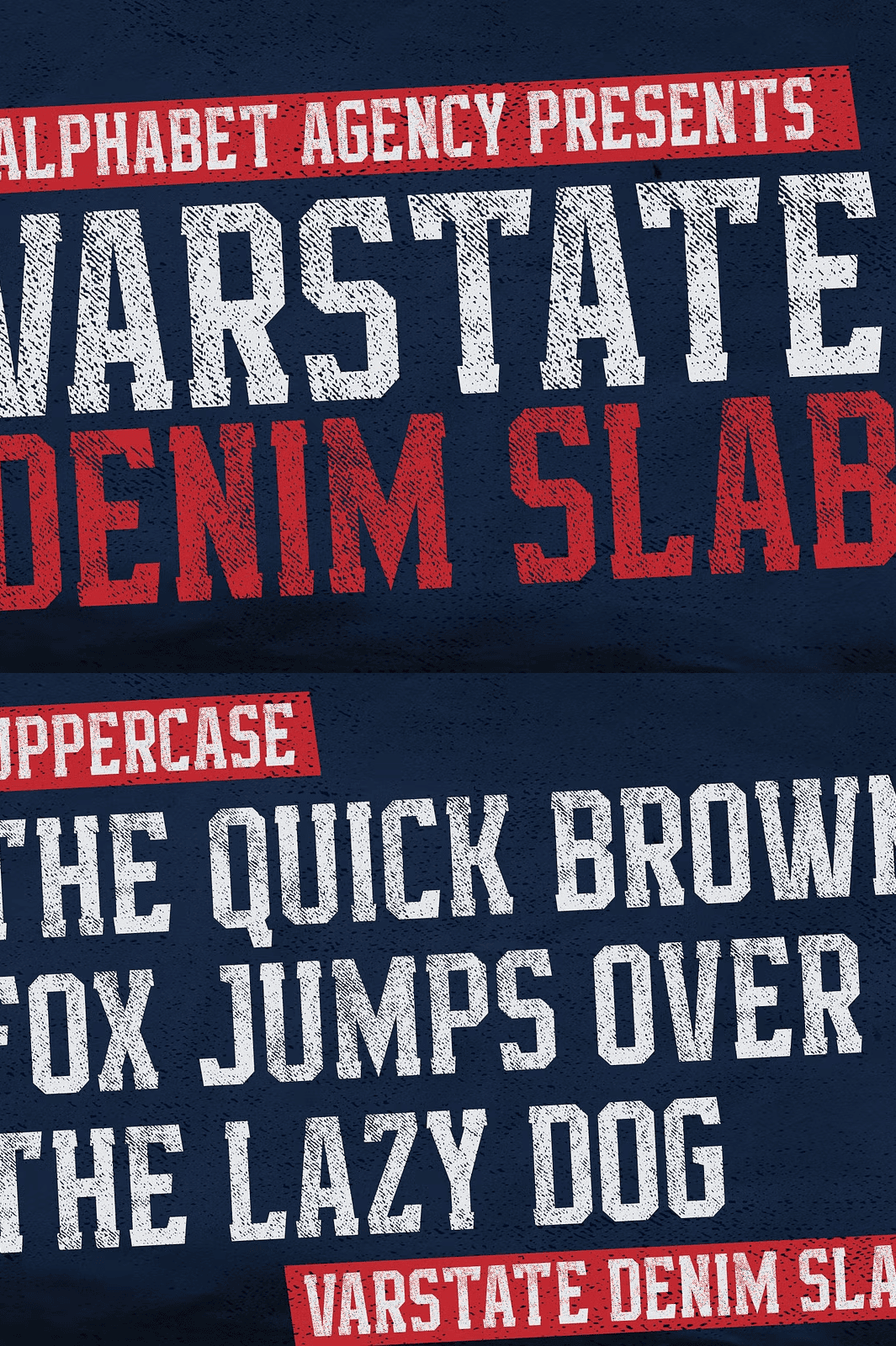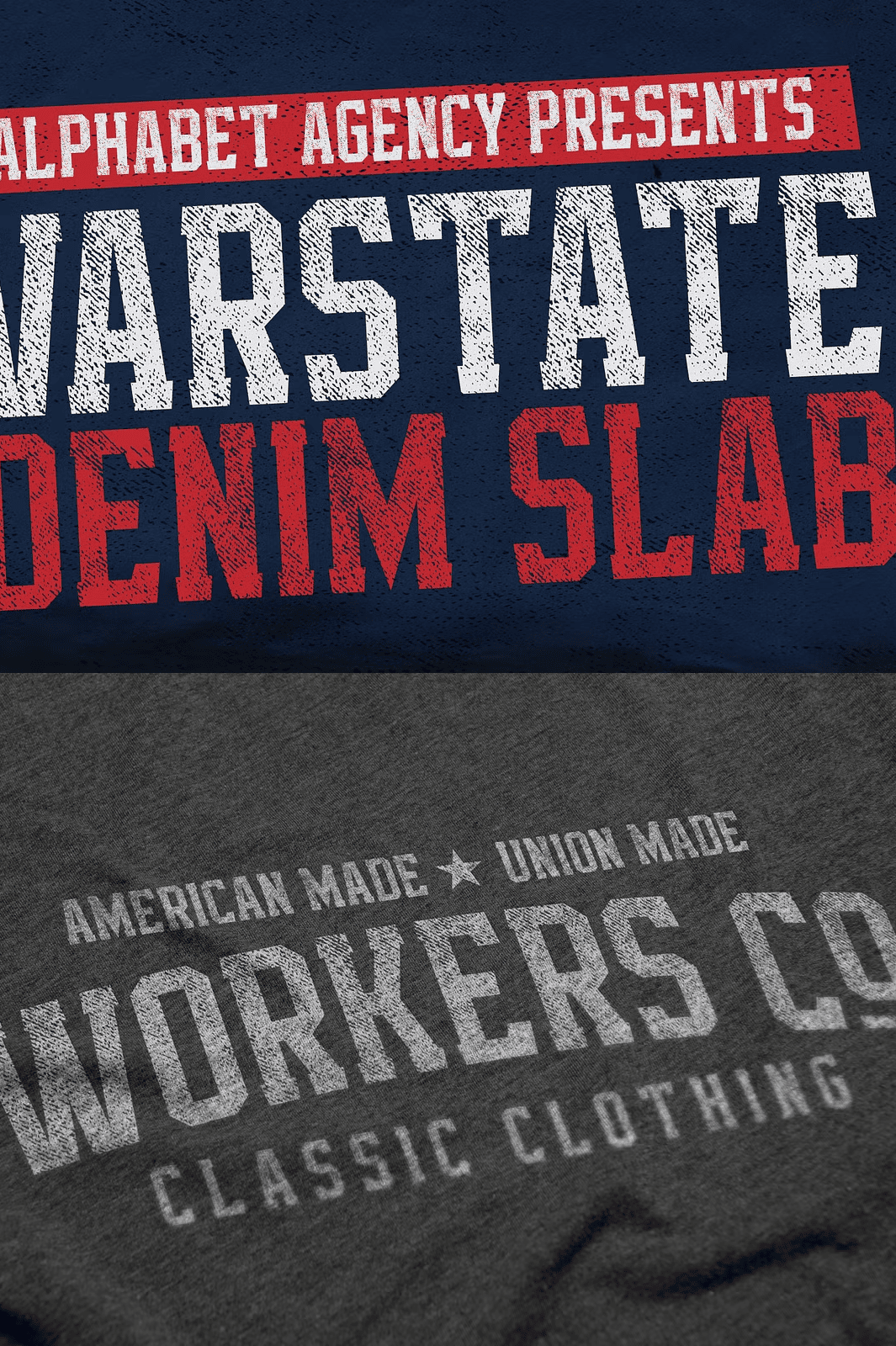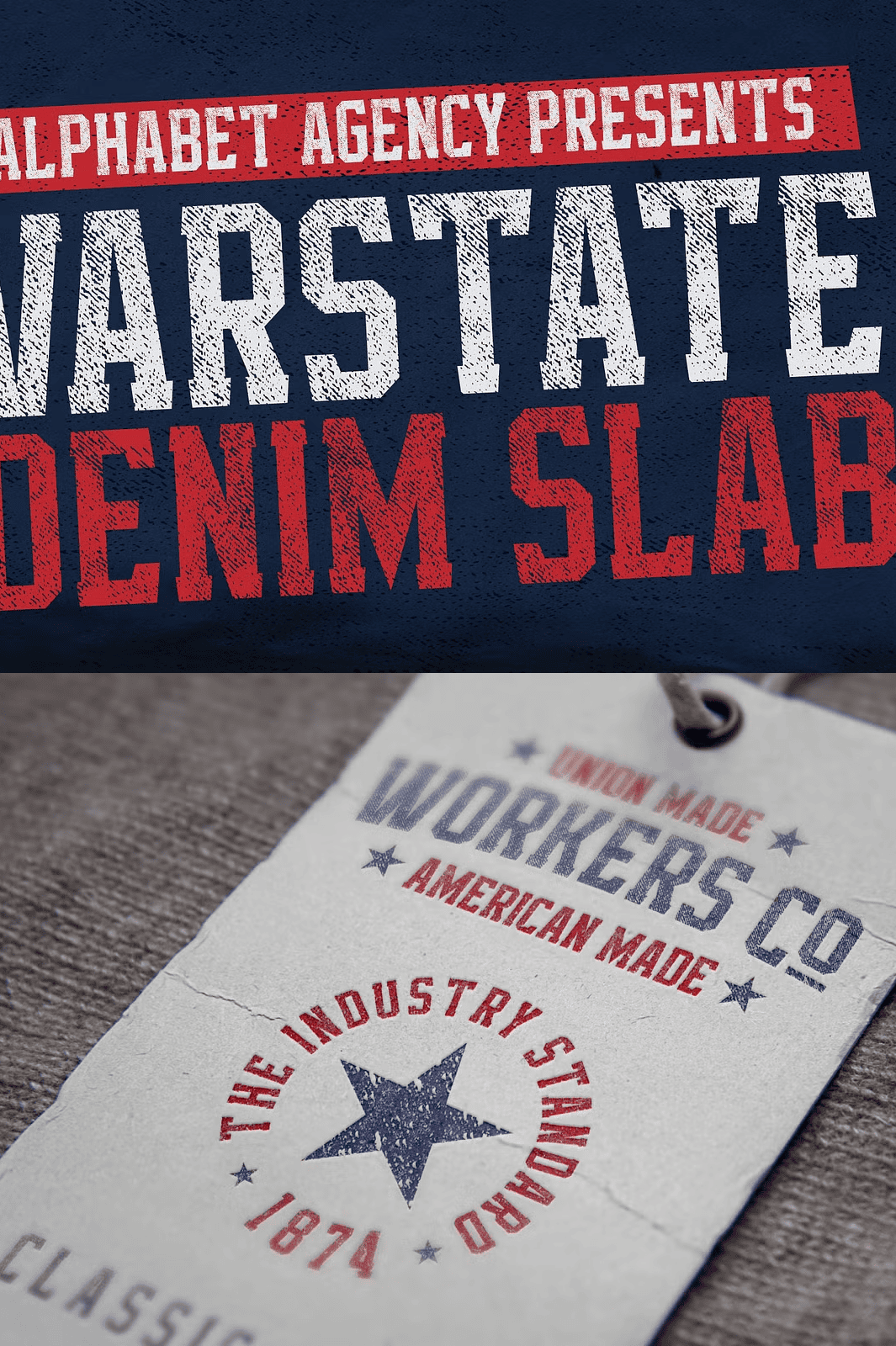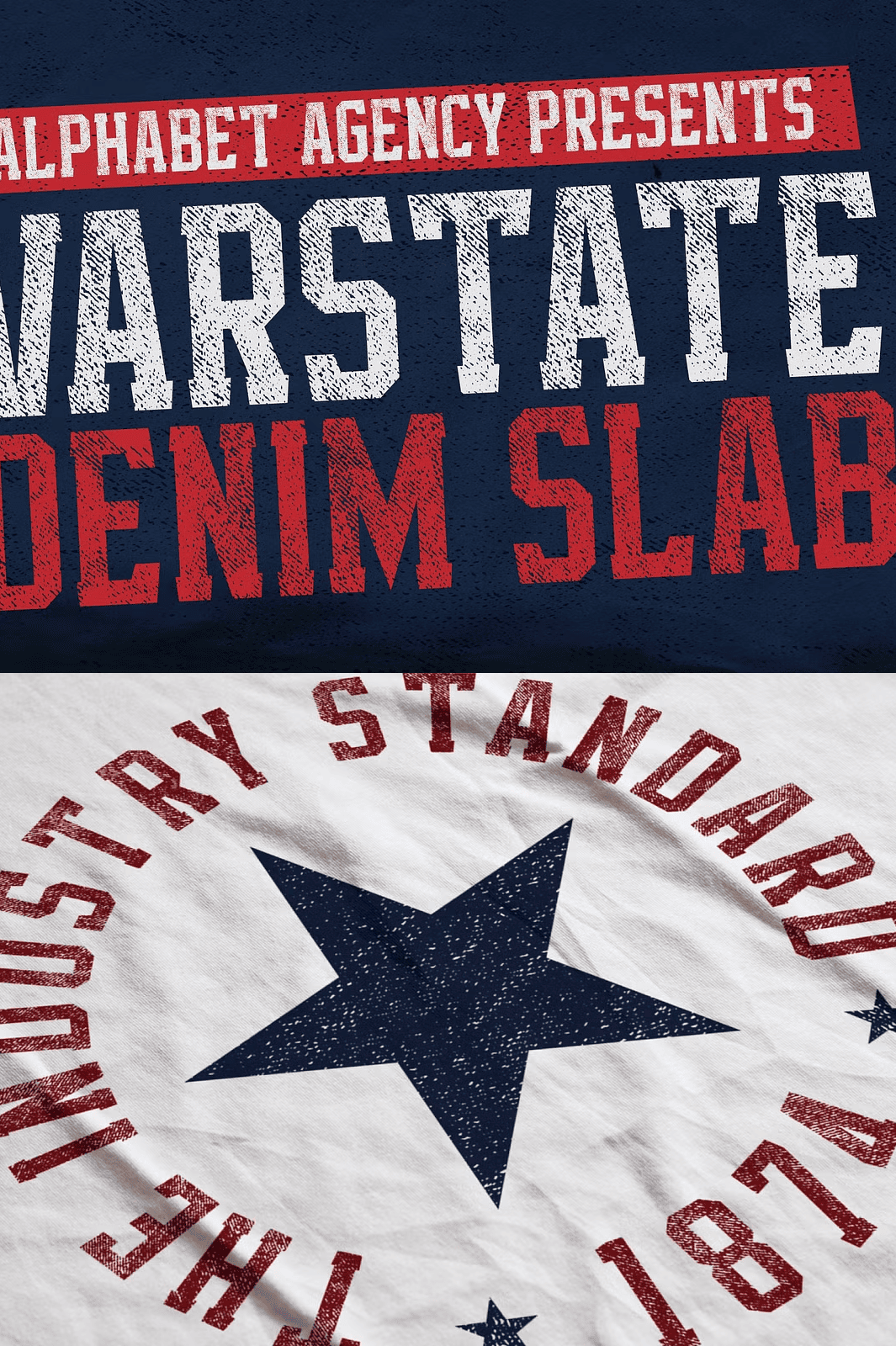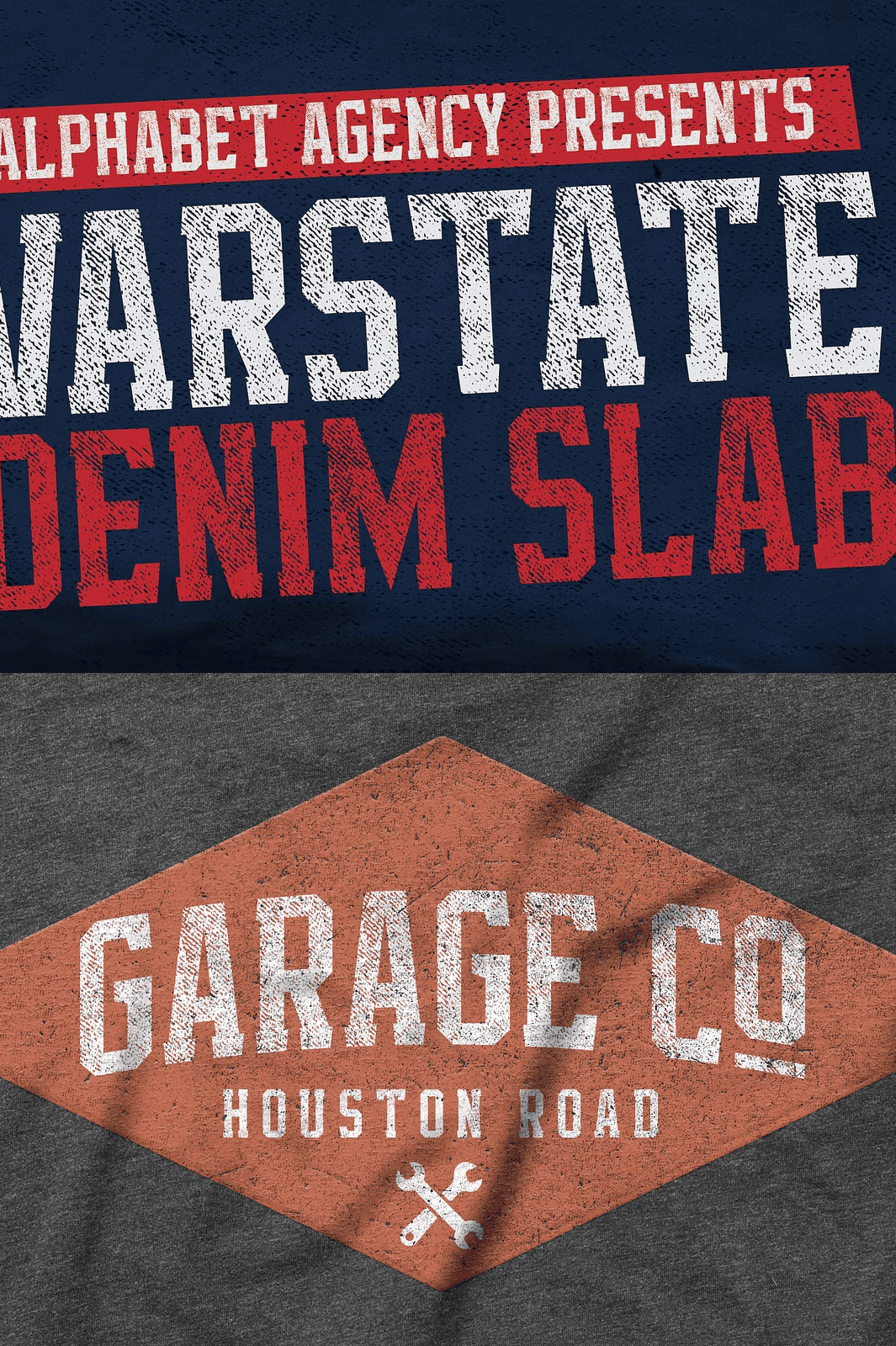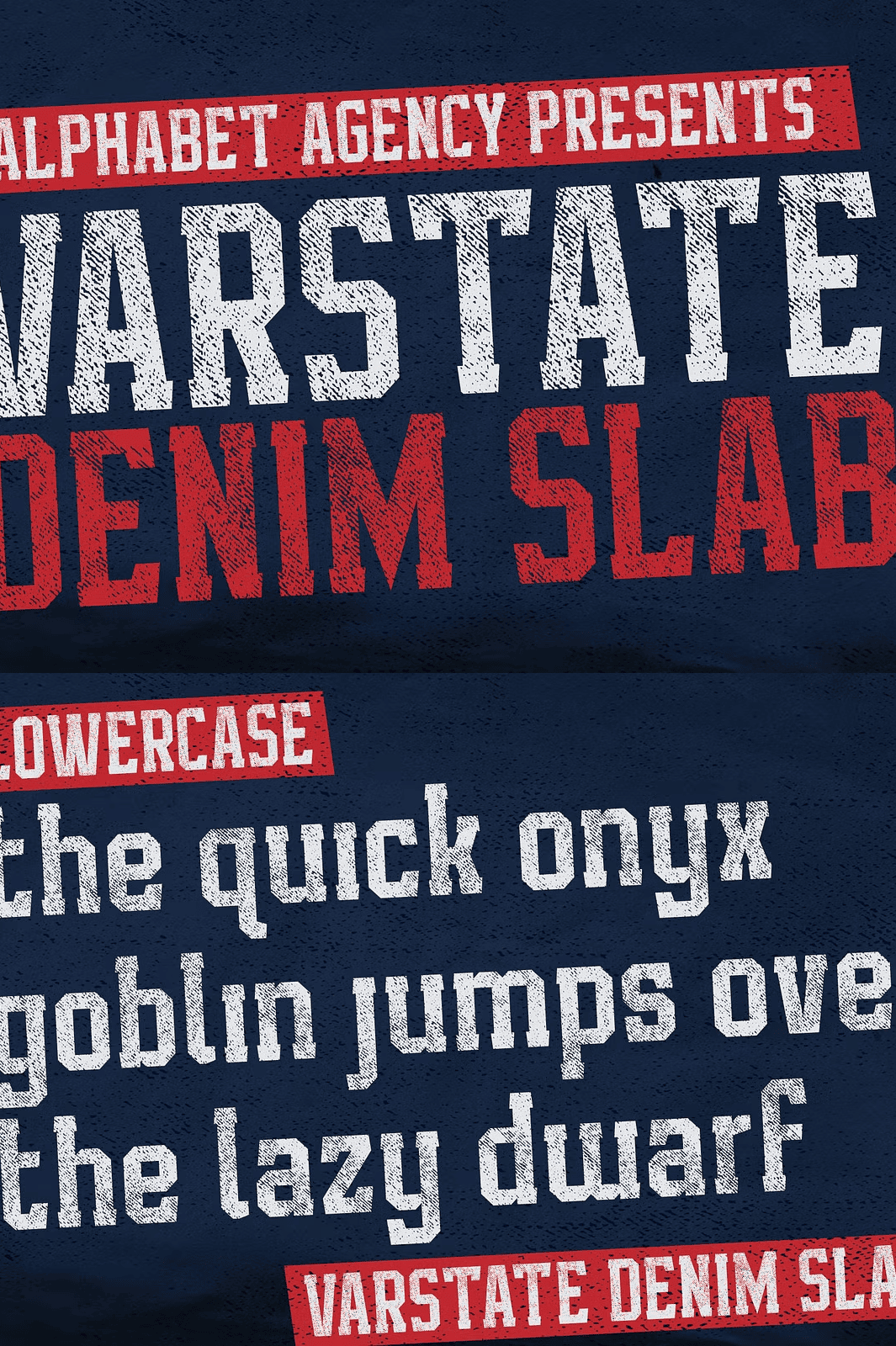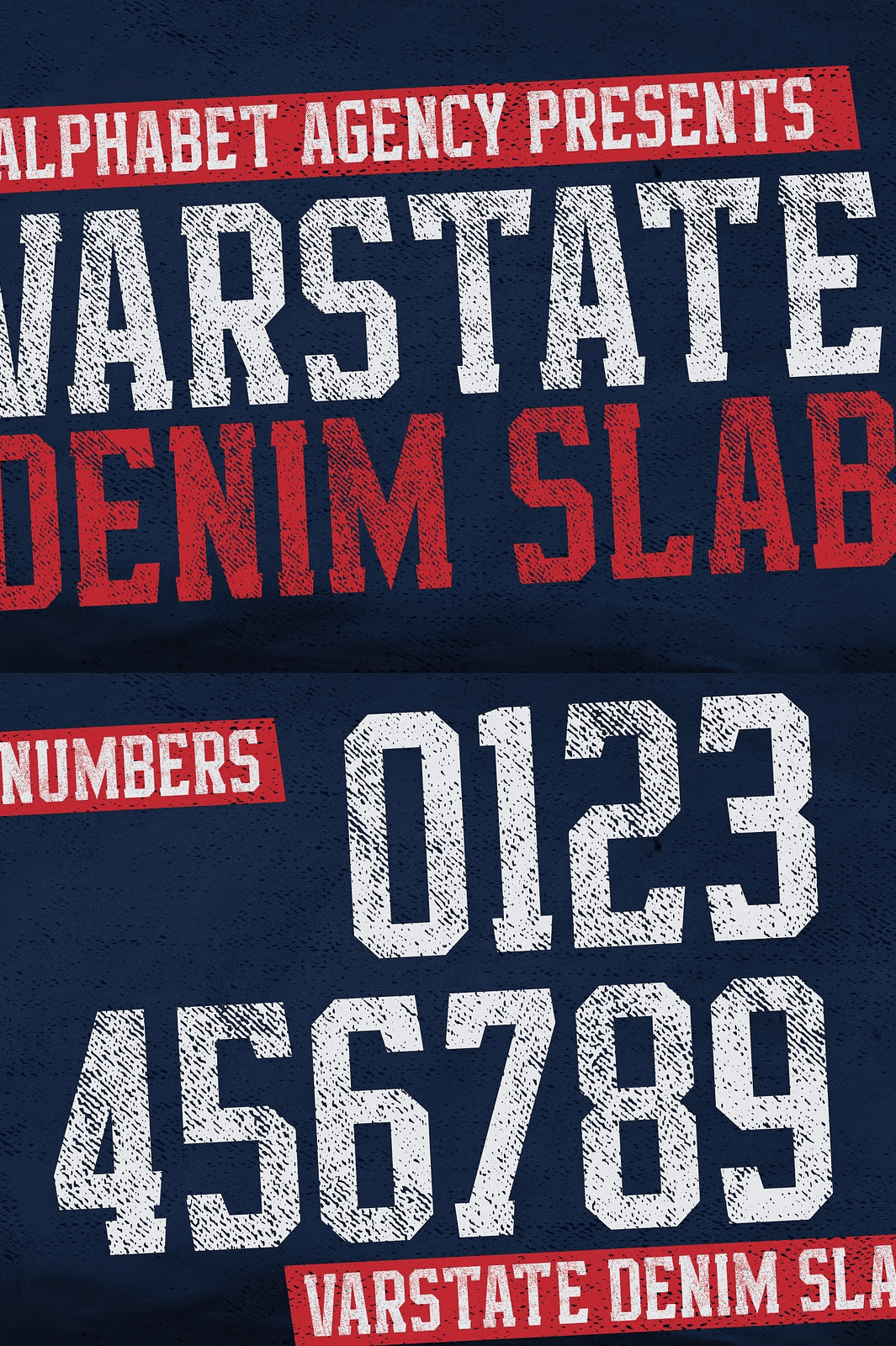
Step into the world of classic sportswear with Varstate Denim Slab, a dynamic typeface that captures the soul of vintage lettering found on Letterman jackets, t-shirts, and hoodies. This isn’t just a font—it’s a wearable identity, a visual homage to the rugged, timeless aesthetic of American varsity culture. With a meticulously embedded **denim texture pattern** woven into every character, Varstate Denim Slab brings physicality and depth to your digital designs, transforming text into a tactile experience.
Rooted in Tradition, Engineered for Modern Design
Designed with authenticity at its core, Varstate Denim Slab draws direct inspiration from team name lettering seen on classic athletic wear—bold, confident, and full of character. Yet, it’s far from outdated. The font combines nostalgic visuals with modern typographic precision, making it ideal for contemporary branding, editorial layouts, and digital storytelling.
The embedded denim texture is no mere overlay. It’s intricately integrated into the stroke design, creating natural variations in line weight and surface detail that mimic the real fabric. This means your headlines don’t just *say* “sporty” or “streetwear”—they *look* and *feel* like they belong on a vintage jacket.
Complete Feature Set for Designers Who Demand Excellence
Varstate Denim Slab is built to perform across every project requirement:
- Comprehensive Character Set—Includes full support for uppercase and lowercase Latin letters, numerals, punctuation, and essential symbols. Perfect for brand names, taglines, product labels, and full-body copy.
- High-Performance Legibility—Clear, well-spaced letterforms ensure readability at any size, from large banners to subtle logo accents.
Whether you’re crafting a fashion campaign, designing a limited-edition hoodie, or building a retro-themed website, Varstate Denim Slab gives you the tools to deliver powerful, polished results.
Perfect for Men’s Fashion, Sporty Branding, and Street Culture
This font thrives in environments where attitude, authenticity, and edge matter. Use Varstate Denim Slab to instantly elevate your projects in:
- Menswear & Fashion Design—Create bold labels, branding elements, and looks that speak to masculine confidence and urban style.
- Brand Identity & Logo Design—Establish a distinctive visual personality that stands out in competitive markets.
- Merchandise & Apparel Labels—Print on t-shirts, hats, and jackets with a font that feels as durable as the fabric itself.
- Event & Campaign Visuals—Use in posters, flyers, and digital ads for concerts, sports events, or lifestyle brands celebrating heritage and street culture.
- Web & App UI Design—Highlight headlines, call-to-action buttons, and navigation elements with a font that commands attention.
When your project needs character that doesn’t fake it, Varstate Denim Slab delivers real, handcrafted style with professional polish.